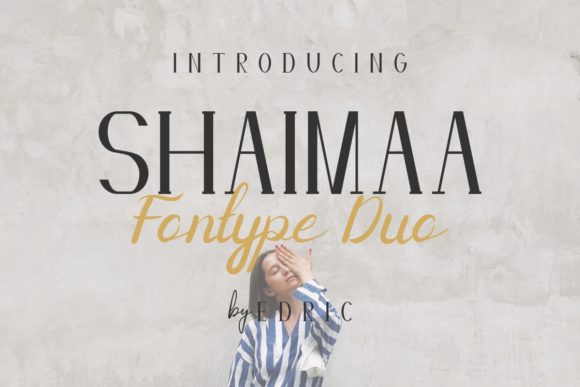
Shaimaa Font: A Lovely Font Duo for Personalized Designs
The world of typography is vast and diverse, with numerous fonts available for various design projects. Among these, the Shaimaa font duo stands out for its unique blend of script and serif styles, offering a personalized touch to any design. In this article, we will explore the features, benefits, and uses of the Shaimaa font, and why it has become a popular choice among designers.
What is Shaimaa Font?
Shaimaa is a font duo that combines two distinct styles: script and serif. This combination allows designers to add a touch of elegance and sophistication to their projects. The script style of Shaimaa font is perfect for adding a personal and creative touch, while the serif style provides a sense of tradition and reliability.
Key Features of Shaimaa Font
- Script and Serif Styles: The Shaimaa font duo offers two complementary styles that can be used together or separately, depending on the design requirements.
- Personalized Appearance: The font is designed to give a personalized touch to any design project, making it perfect for branding, packaging, and advertising.
- Elegant and Sophisticated: The Shaimaa font exudes elegance and sophistication, making it suitable for high-end designs and luxury brands.
- Versatile: The font duo can be used for a wide range of design projects, from logos and brochures to websites and social media graphics.
Benefits of Using Shaimaa Font
The Shaimaa font duo offers several benefits to designers, including:
1. Unique and Creative Designs
The Shaimaa font allows designers to create unique and creative designs that stand out from the crowd. The combination of script and serif styles provides a distinctive look that can be used to differentiate a brand or product.
2. Time-Saving
The Shaimaa font duo is designed to be versatile and easy to use. Designers can use the font to create a wide range of designs, from logos to brochures, without having to spend hours selecting and pairing different fonts.
3. Consistency Across Designs
The Shaimaa font duo ensures consistency across designs, which is essential for branding and marketing. The font’s script and serif styles are carefully crafted to work together seamlessly, providing a cohesive look and feel.
Uses of Shaimaa Font
The Shaimaa font duo is suitable for a wide range of design projects, including:
1. Branding and Logo Design
The Shaimaa font is perfect for creating unique and memorable logos that reflect a brand’s personality and values.
2. Packaging Design
The font duo can be used to create eye-catching packaging designs that stand out on store shelves.
3. Advertising and Marketing
The Shaimaa font can be used to create effective advertising and marketing materials, such as brochures, flyers, and social media graphics.
4. Website Design
The font duo can be used to create visually appealing websites that provide a great user experience.
How to Use Shaimaa Font
Using the Shaimaa font duo is easy and straightforward. Here are some tips:
1. Choose the Right Style
Choose the script style for creative and personal designs, and the serif style for traditional and formal designs.
2. Pair the Fonts
Pair the script and serif styles to create a unique and visually appealing design.
3. Experiment with Font Sizes
Experiment with different font sizes to create visual hierarchy and emphasize important information.
The Shaimaa font duo is a versatile and elegant font that can add a personalized touch to any design project. With its script and serif styles, the font offers a unique and creative way to communicate a message and create a lasting impression. Whether you’re a designer or a business owner, the Shaimaa font is a great choice for any design project that requires a sophisticated and elegant look.